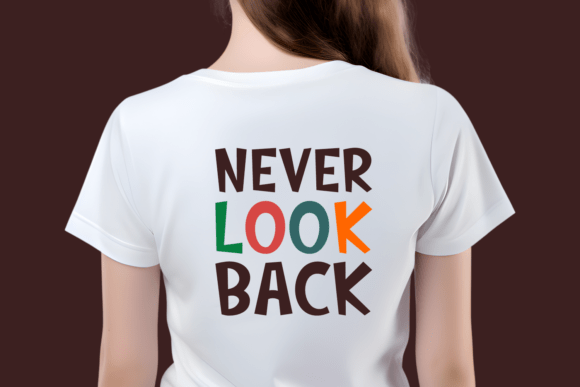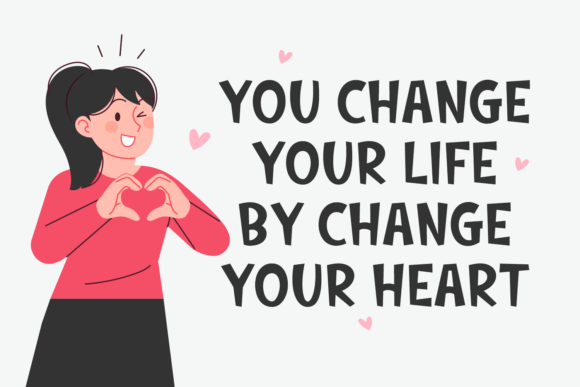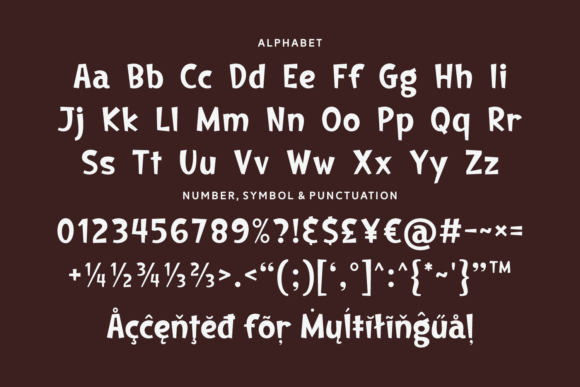
The Grinch Heart Font: A Playful Holiday Display Font
A Personal Review: What I Love About Grinch Heart
The Grinch Heart font has become a staple in my design toolkit, and for good reason. Here are a few things that make it stand out:
- ✨ Playful and whimsical design: The Grinch Heart font is a perfect blend of holiday cheer and levity, making it ideal for festive projects.
- ✅ Versatile: It can be used for a wide range of projects, from T-shirts and covers to brochures, logos, and greeting cards.
- 🎉 Cartoon-style typeface: The font’s playful design adds a touch of fun and personality to any project.
While the Grinch Heart font is a fantastic addition to any design project, there are a few things to keep in mind:
- 🤔 Limited use cases for formal projects: Due to its playful nature, the Grinch Heart font may not be suitable for more formal projects or designs that require a professional tone.
- ⚠️ Glyph and character set limitations: As with any font, there may be limitations to the glyph and character set, so be sure to review the font’s capabilities before committing to a project.
The Designer Inspiration Behind Grinch Heart
The Grinch Heart font was inspired by the classic Dr. Seuss character, the Grinch. The font’s designer wanted to capture the playful and mischievous spirit of the Grinch in a typeface that would bring joy and whimsy to holiday designs.
| What type of projects is the Grinch Heart font best suited for? | The Grinch Heart font is ideal for festive projects, such as holiday cards, decorations, and gift tags. |